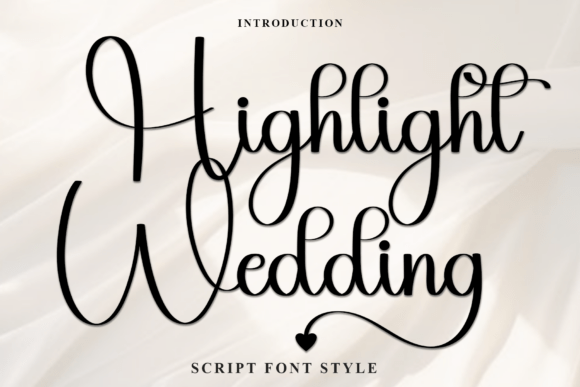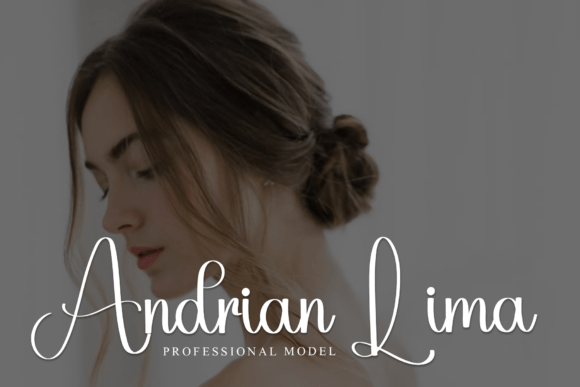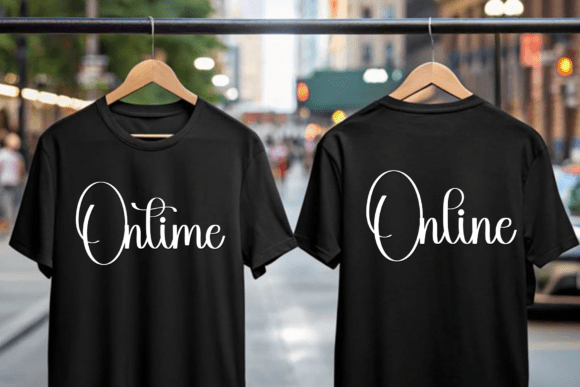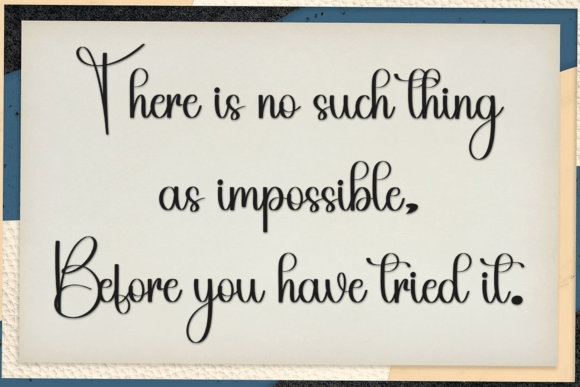
Highlight Wedding Font
About the Highlight Wedding Font
From logos to headlines, the Highlight Wedding Font is the perfect choice for making a lasting impression. Highlight Wedding is a festive and merry typeface that captures the spirit of the holiday season. With its decorative elements and whimsical flair, it adds a touch of enchantment to your designs. Perfect for greeting cards, gift tags, and holiday-themed projects, this font brings a cheerful and nostalgic ambiance to your words. Let your typography shine with the magic of Beautiful Font!
Highlight Wedding Font’s playful, decorative style is ideally suited for headlines, short text blocks on invitations, and celebratory branding projects. It works exceptionally well in packaging design for gifts or confectionery, adding a touch of festive charm. However, its highly decorative nature makes it unsuitable for body text or UI elements where legibility is paramount. Avoid using it for lengthy paragraphs or website copy.
To balance its whimsical energy, pair Highlight Wedding with a clean sans-serif like Lato for body text or a classic serif like Garamond for a more sophisticated feel. A simple, geometric sans-serif could also provide a strong counterpoint, creating visual interest without overwhelming the design.
The font’s overall personality is undeniably festive and cheerful, best employed in projects that require a lighthearted and celebratory tone. Consider it for brands focused on events, weddings, or products aiming for a joyful, whimsical aesthetic.
Highlight Wedding Font Usage Examples
Highlight Wedding Font Example